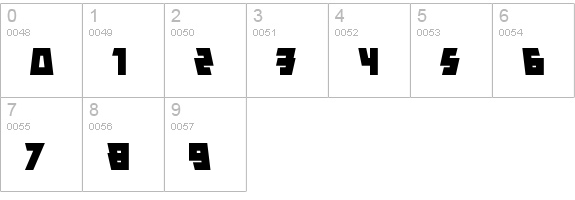
Savantism Font Details
Introducing Savantism font - a modern and stylish typeface that exudes sophistication and elegance. With its sleek lines and contemporary design, Savantism is perfect for a wide range of projects, from branding to editorial design. This versatile font is sure to make your text stand out and leave a lasting impression on your audience. What's even better is that Savantism font is available for free! You can easily download this exquisite font at FontsMarket.com and start using it in your designs today. Elevate your projects with the timeless beauty of Savantism font and make a statement with every word you write.